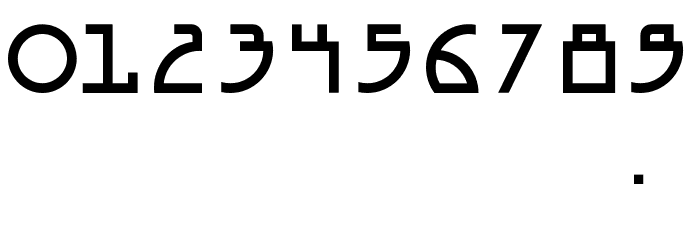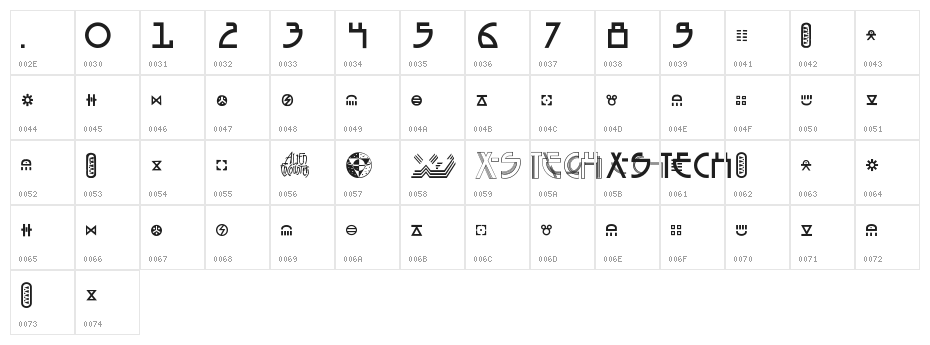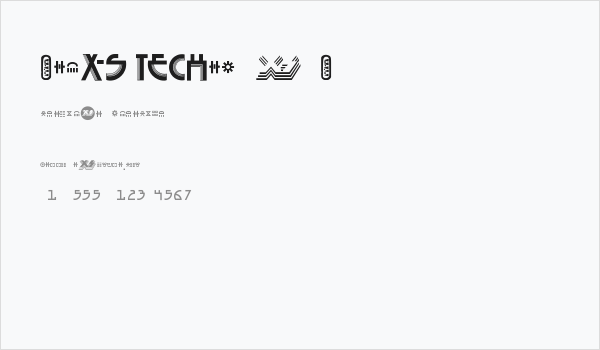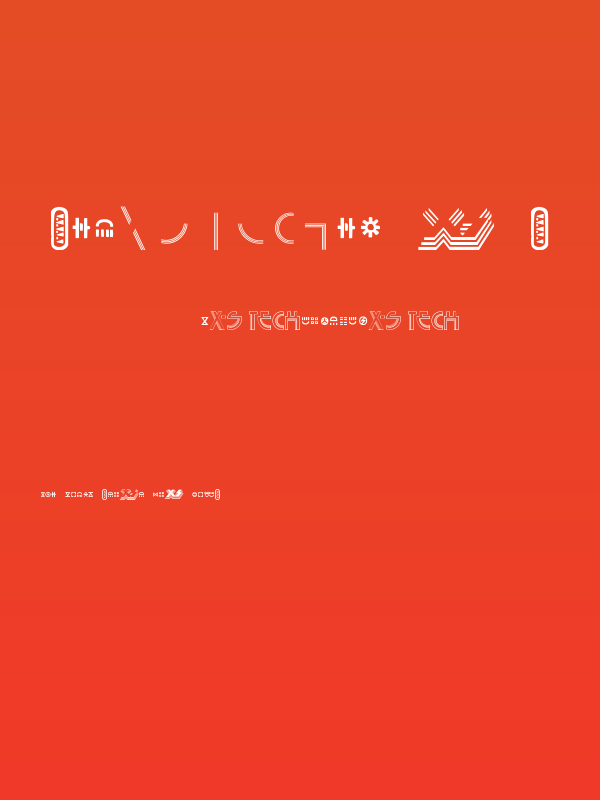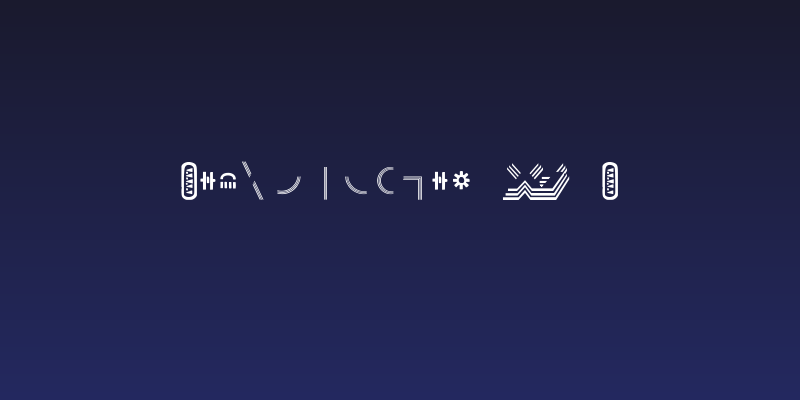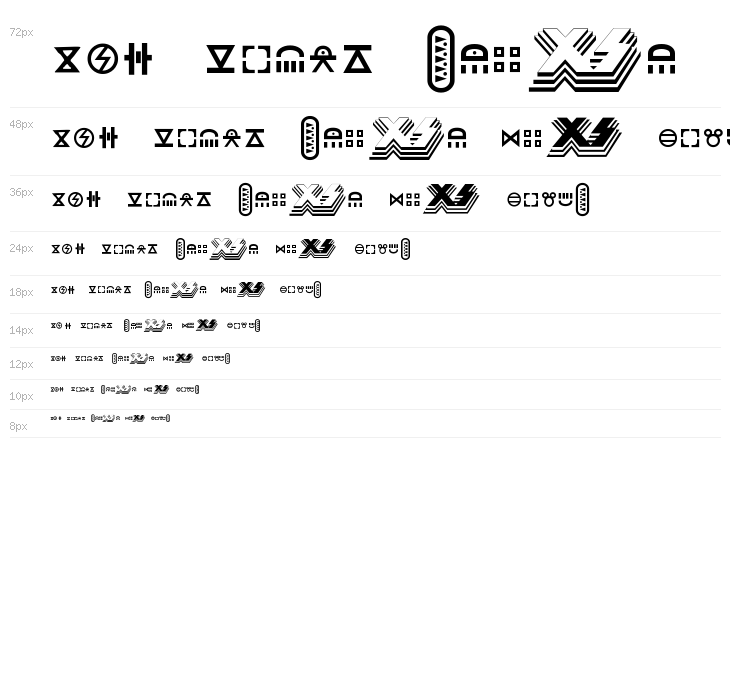
Seized X-S Font
Seized X-S Description
This font features a highly decorative and abstract design, incorporating a mix of geometric shapes and symbols that resemble alien or futuristic motifs. The characters are bold and striking, with a unique blend of lines and curves that create a sense of mystery and intrigue. The font lacks traditional letterforms, instead opting for a series of symbols that could be used for artistic or thematic purposes. The numbers maintain a more recognizable form but are still stylized to match the overall theme. This font is ideal for projects that require a distinct and unconventional aesthetic.
| Overall Style | Futuristic, Abstract, Decorative |
| Use Case | Logos, Posters, Thematic Designs |
| Proposed Projects | Ideal for sci-fi themed designs, video game graphics, movie posters, or any project requiring a unique and otherworldly aesthetic. |